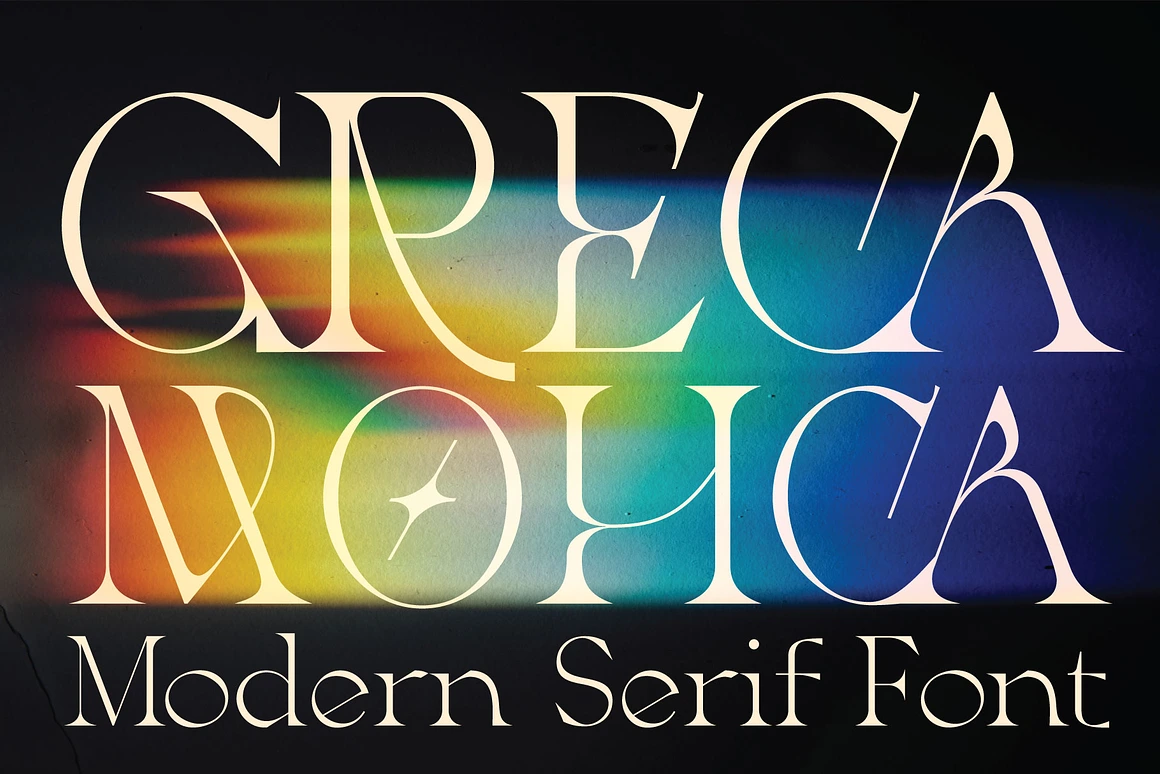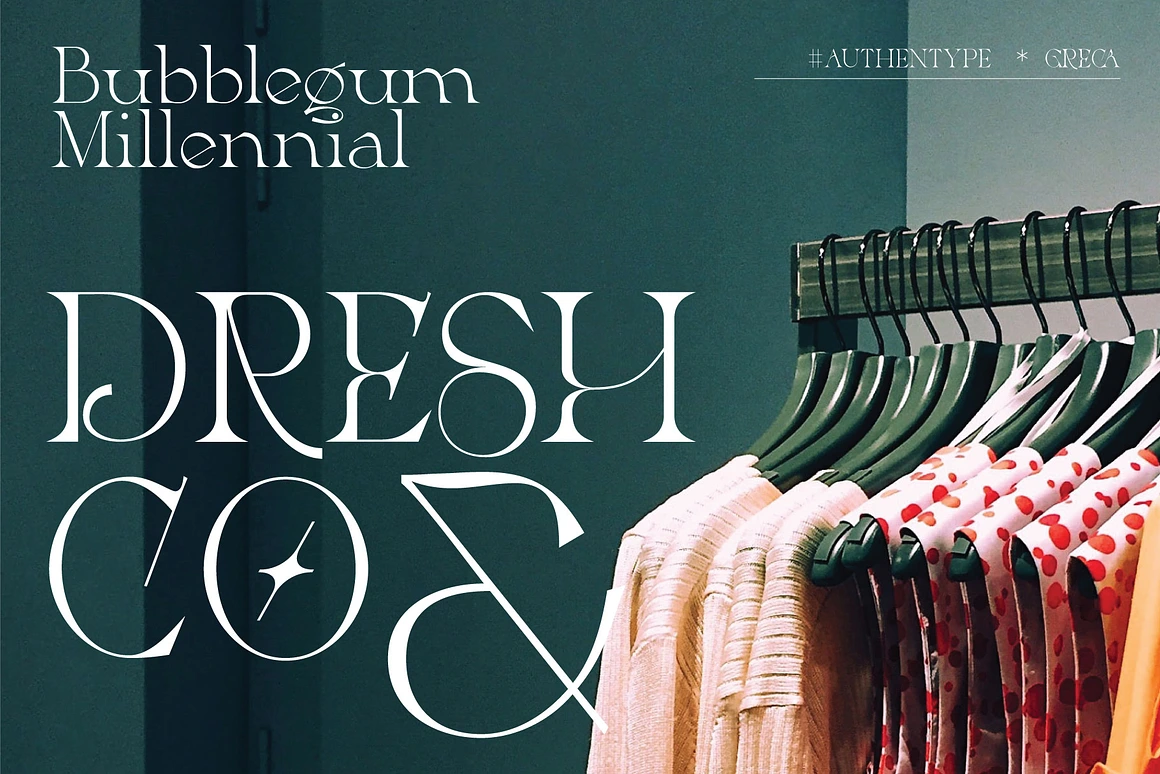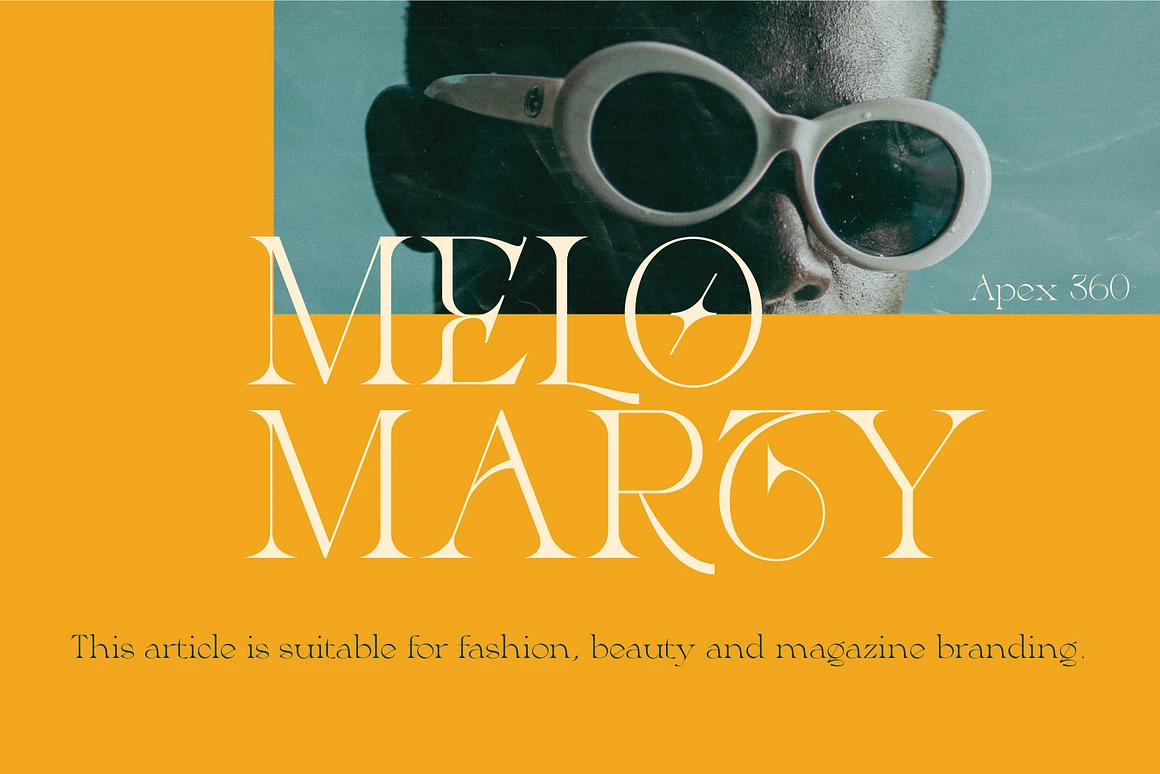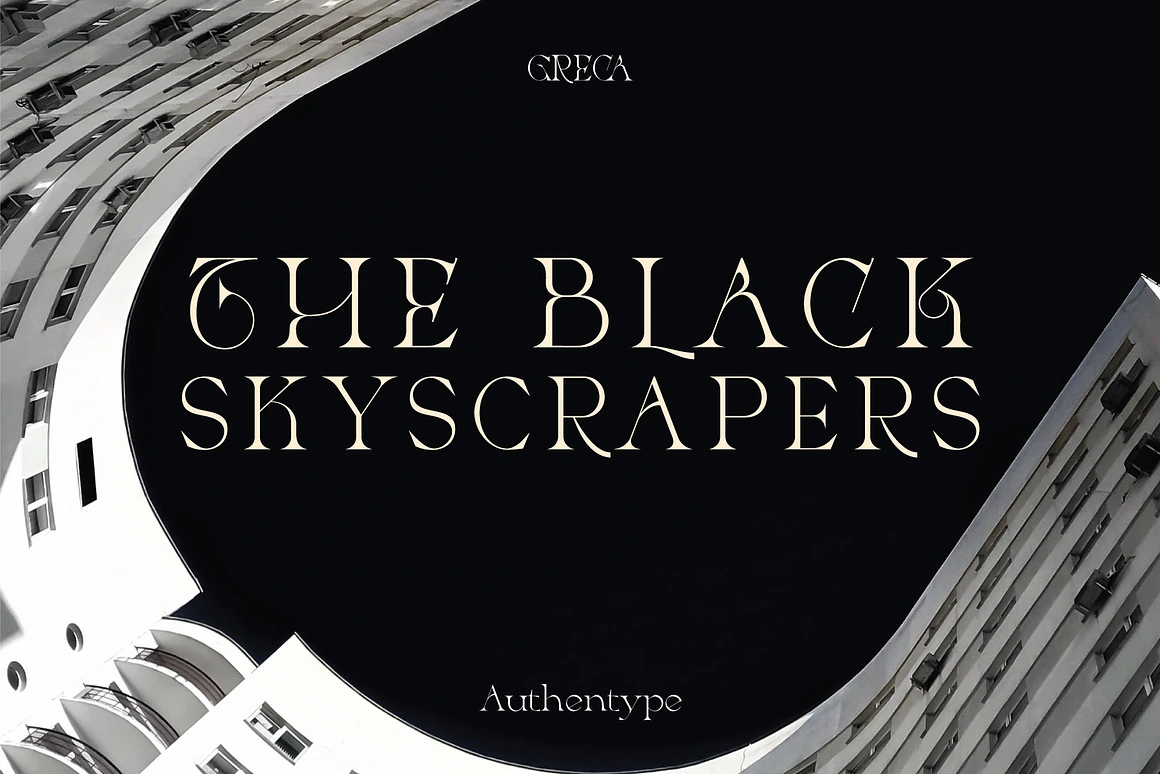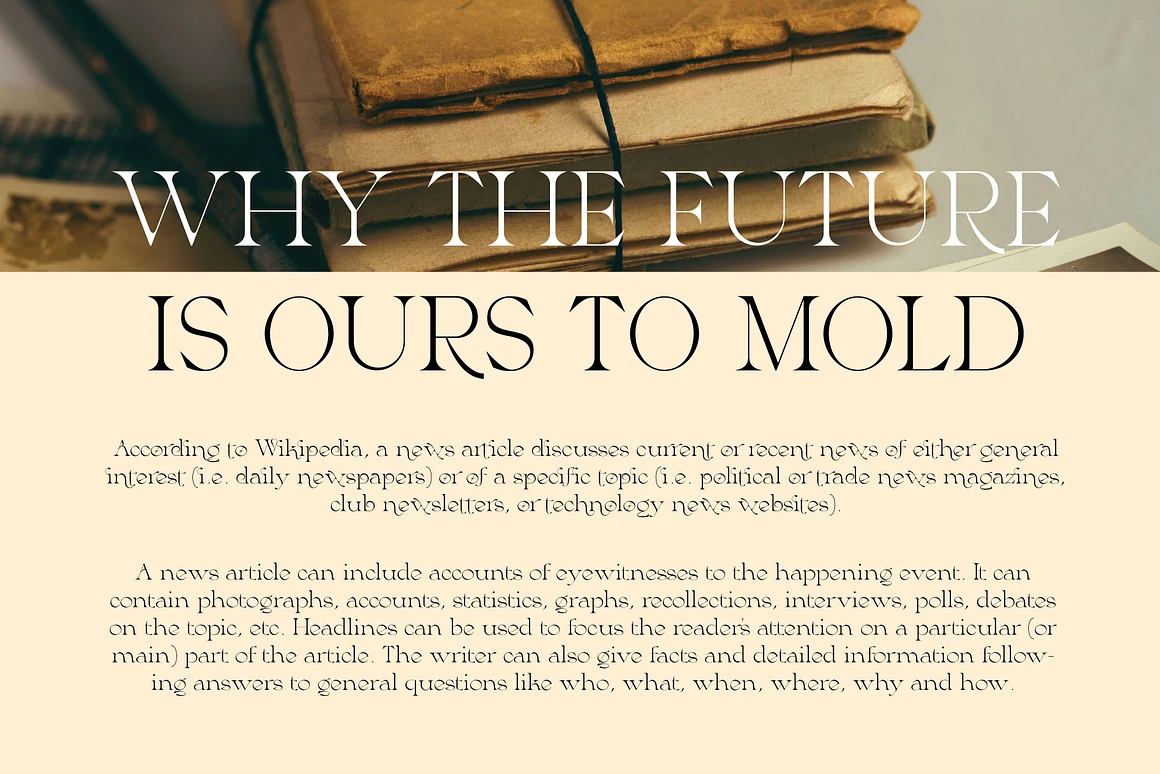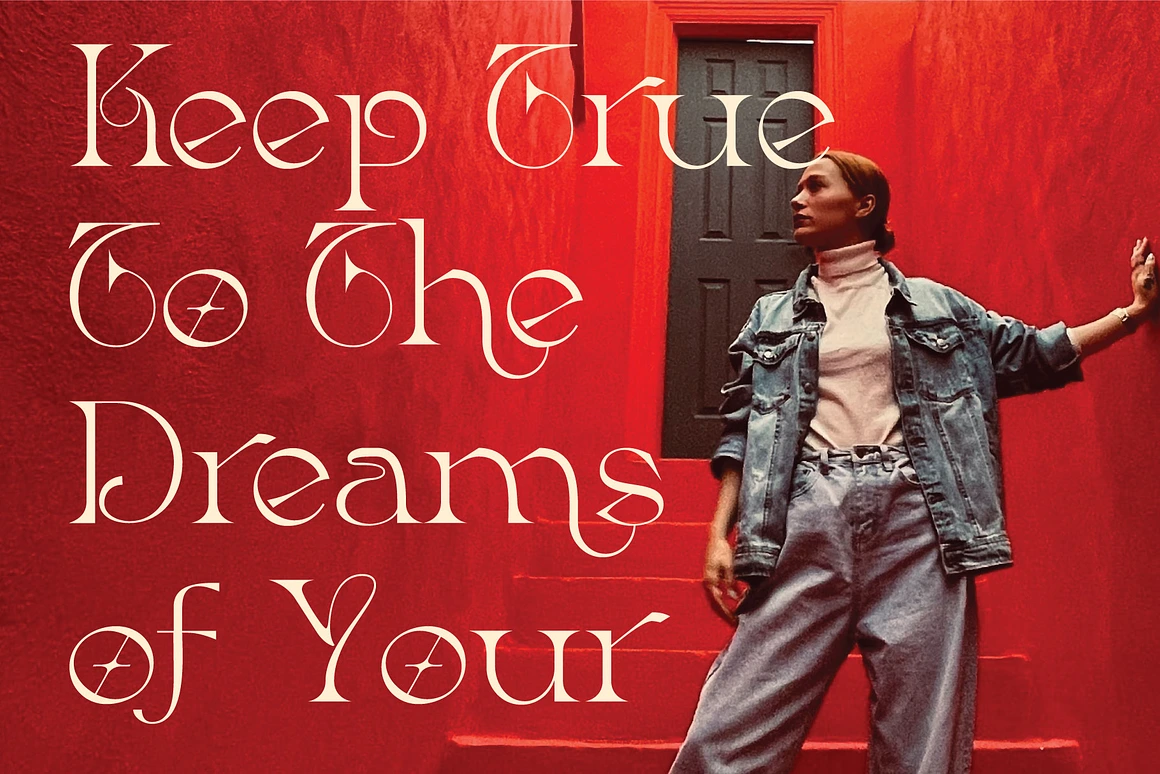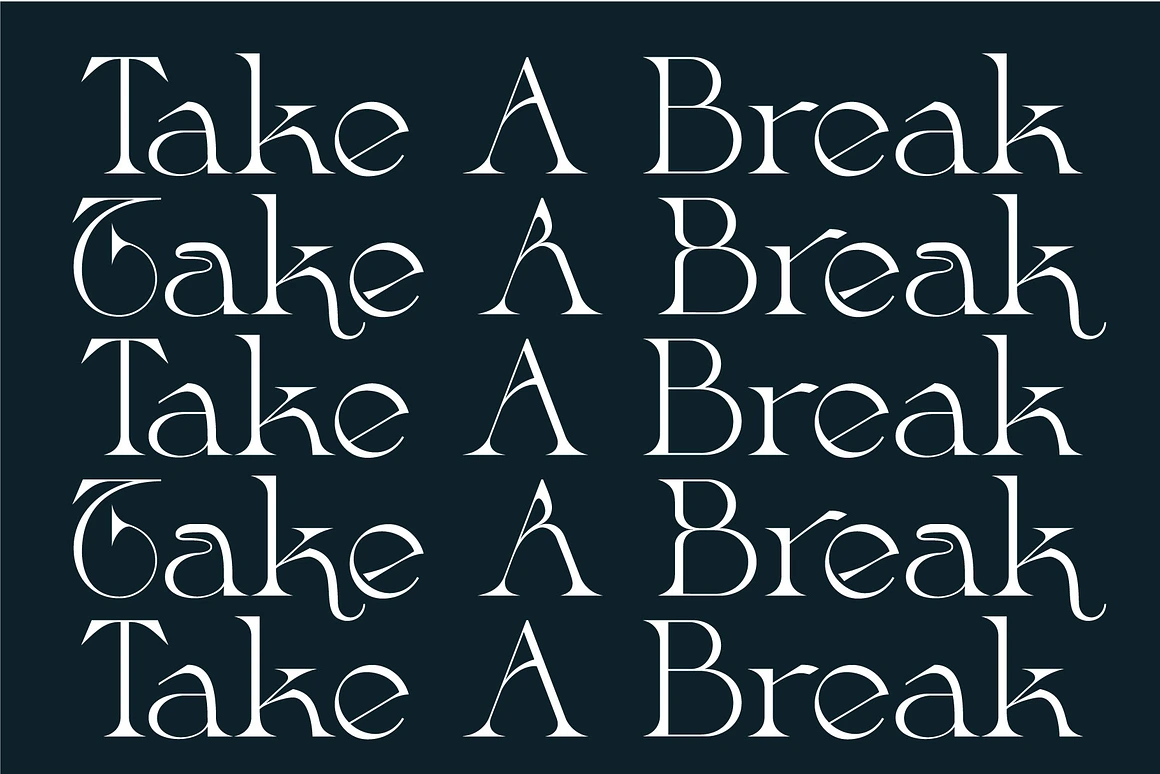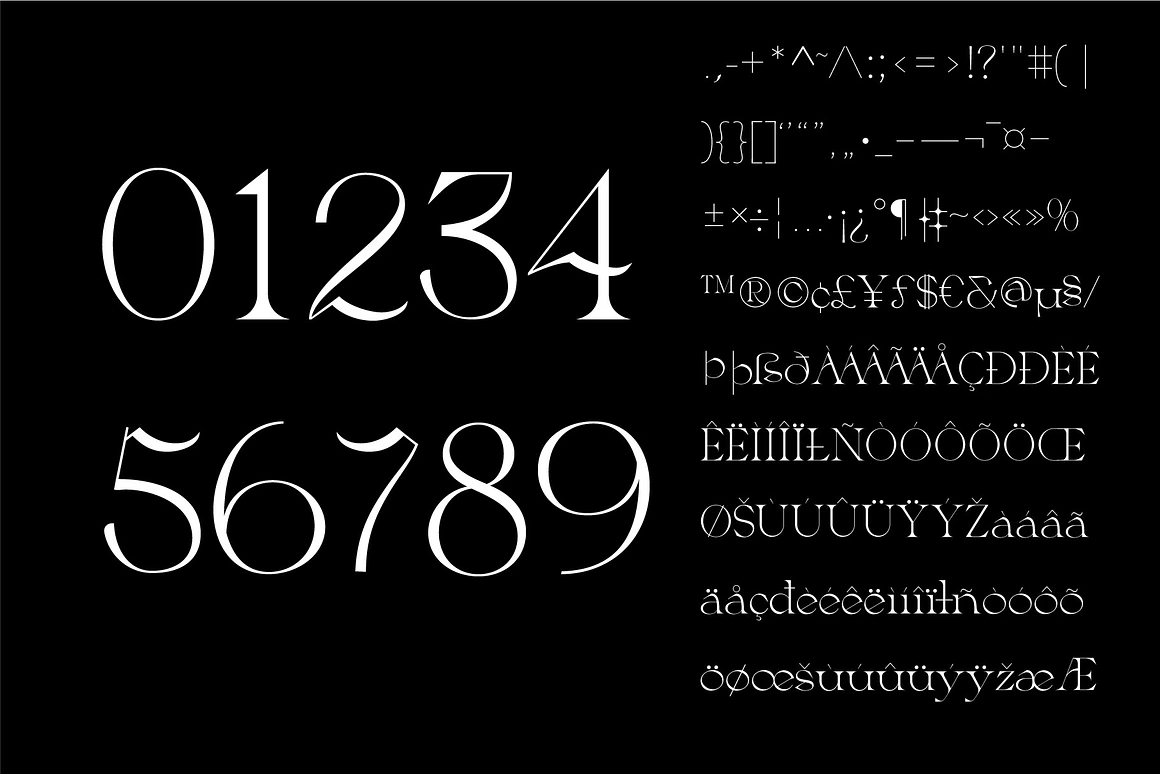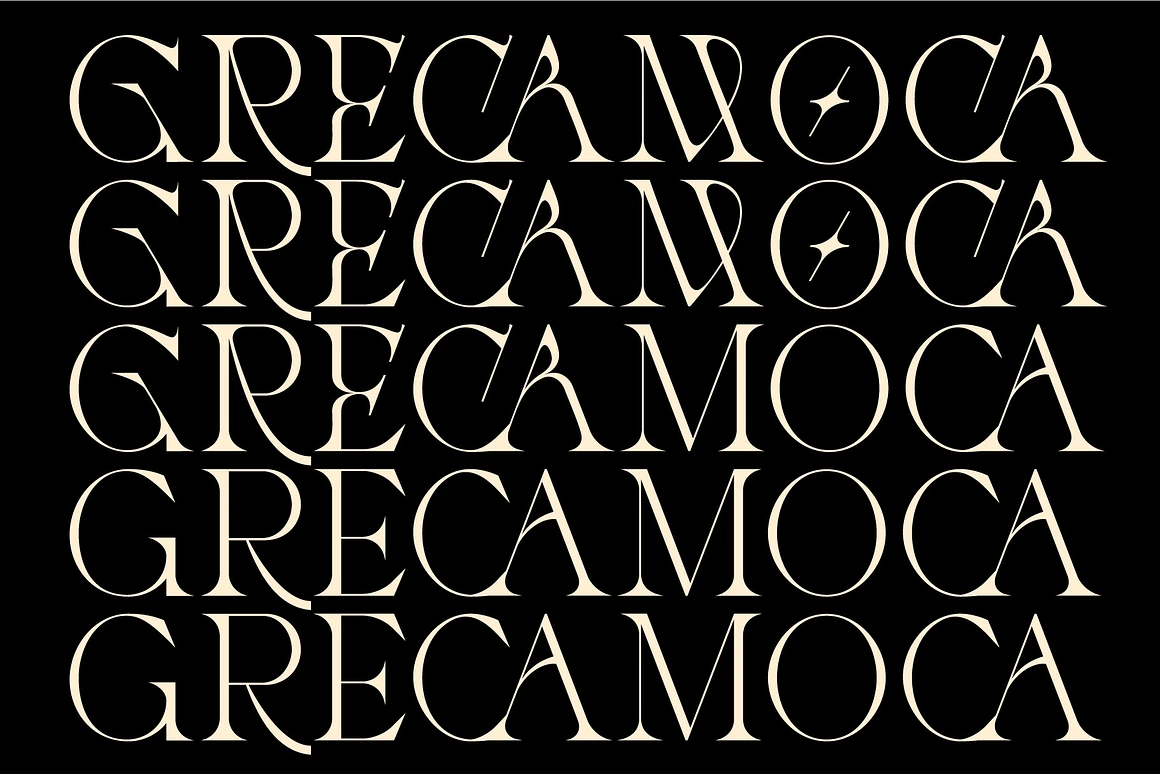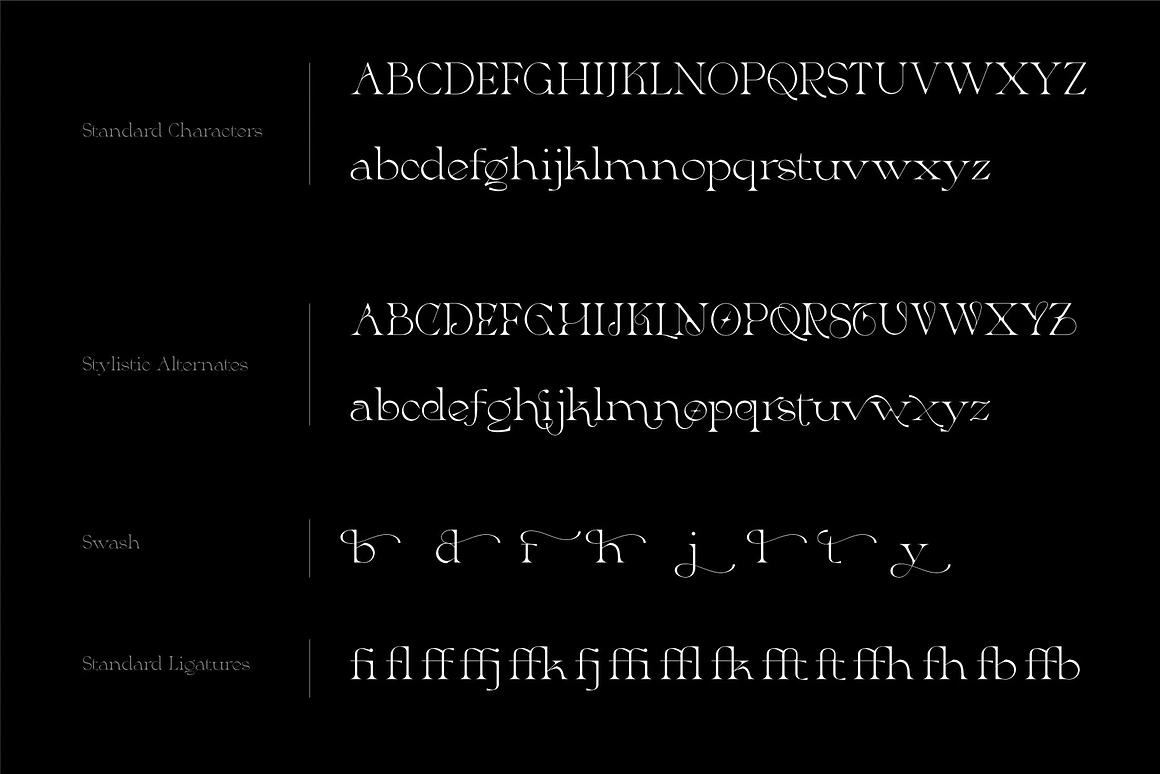
Greca - Modern Serif Font
Greca is a modern serif typeface distinguished by its stylish shapes and refined line work. By activating the stylistic alternates, you can transform the appearance of each letter, creating a striking contrast compared to the regular style.
Greca is a modern serif typeface distinguished by its stylish shapes and refined line work. By activating the stylistic alternates, you can transform the appearance of each letter, creating a striking contrast compared to the regular style. This feature is complemented by elegant swashes, numerous ligatures, and extensive multilingual support, making Greca a versatile choice for a wide range of creative projects.
• Characters: Standard uppercase & lowercase glyphs
• Extras: Numerals, extensive punctuation, ligatures, swashes, and stylistic sets
• Multilingual Support: ä ö ü Ä Ö Ü ß ¿ ¡
Whether you’re designing high-end branding, elegant invitations, editorial layouts, or stylish packaging, Greca modern serif offers both modern elegance and creative flexibility.